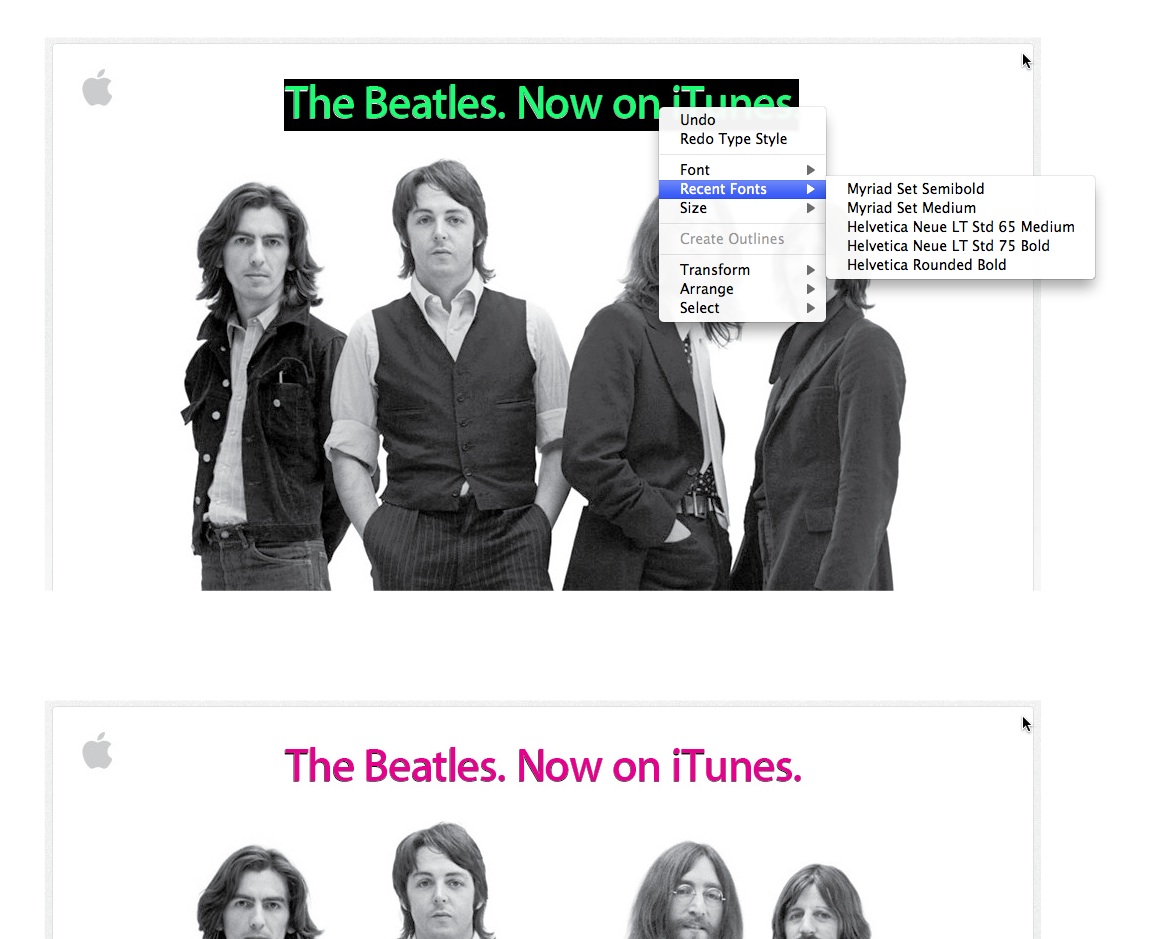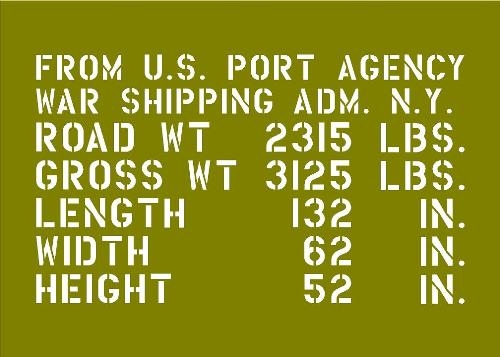
Please identify this stencil font.
I've seen several at myfonts.com and fonts.com, but I can't seem to get a perfect match. Thanks!
What font does MS use for its office 2011 logo?
The "Office" is in a font called or close to one called FreeSet Book
The "mac" is in a font called or close to one called Kievit OT-Extra Light
The "2011" is in a font called or close to one called Qugard Sans-Regular Caps Tf
Source: WhatTheFont
Identify Text Fonts
Can anyone identify the two different fonts used in this image? Ive tried all the online font scanners/questionaires and even tried raster to vector image converter because the program im trying to do this in can create lines from a vector image but the raster is not sharp enough to give me what I need. Im trying to get a toolpath for this which requires I have the lines and the program (Mastercam X4) has a Raster2Vector converter to create lines/arcs out of an image but as stated its not sharp enough to create a good copy of it. If anyone could identify the fonts or even give me an AutoCAD, Solidworks, Mastercam or any other drafting program drawing of it that would be awesome!
Can anyone identify the two different fonts used in this image?
"Pennsylvania College" looks like a weight of Helvetica, I'd go for Helevetica Neue Cond Bold, but some combination of Helvetica in a Narrow/Condensed and Bold variation should do the trick.
"PennState" is a bit small to usefully work with -- perhaps someone with better eyes than me can advise!
I ran it through What The Font on myfonts.com and it came back with Din for the top font.
It's not Din -- the body of the 'a' slopes downwards more in this sample, and the tail of the 'y' is shorter here than in Din. I'm going to stand by Helvetica in some Cond/Narrow version on this one.
I agree it's a version of Helvetica Neue Condensed Bold, the small text reminds me of optima.
Here's the 10 sec photoshop job:
"Pennsylvania College" looks like a weight of Helvetica, I'd go for Helevetica Neue Cond Bold, but some combination of Helvetica in a Narrow/Condensed and Bold variation should do the trick.
Nah, don't think it's Helvetica. Helvetica is curvier than the font in this.
MagicWok posted the same wording in Helvetica Neue Condensed Bold a couple of posts upthread. Looks pretty close to me -- if you have a font that's a better match, can we see it?
Myriad Set
what is this one? is it an Apple font? please help...
Yes, it is Apple's version of Myriad, called Myriad Set. It's next to impossible to get it because Apple makes you sign a release that you will not distribute it. I have it because I've worked on some Apple projects and our Apple rep gave us a copy ...but I can't give it to you, sorry 🙂
...but Myriad Pro Semibold is really close. It's just not quite right if you're a perfectionist (like me). Cheers!